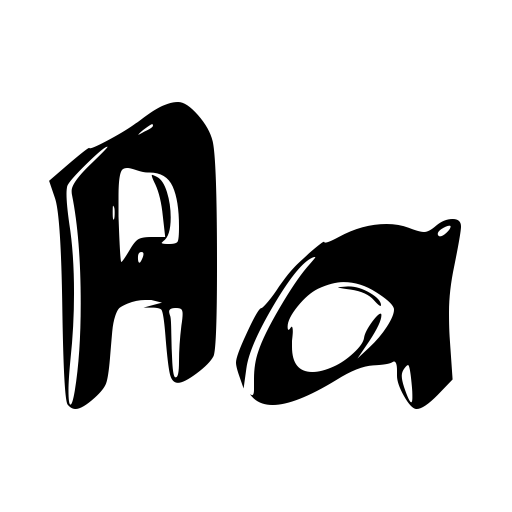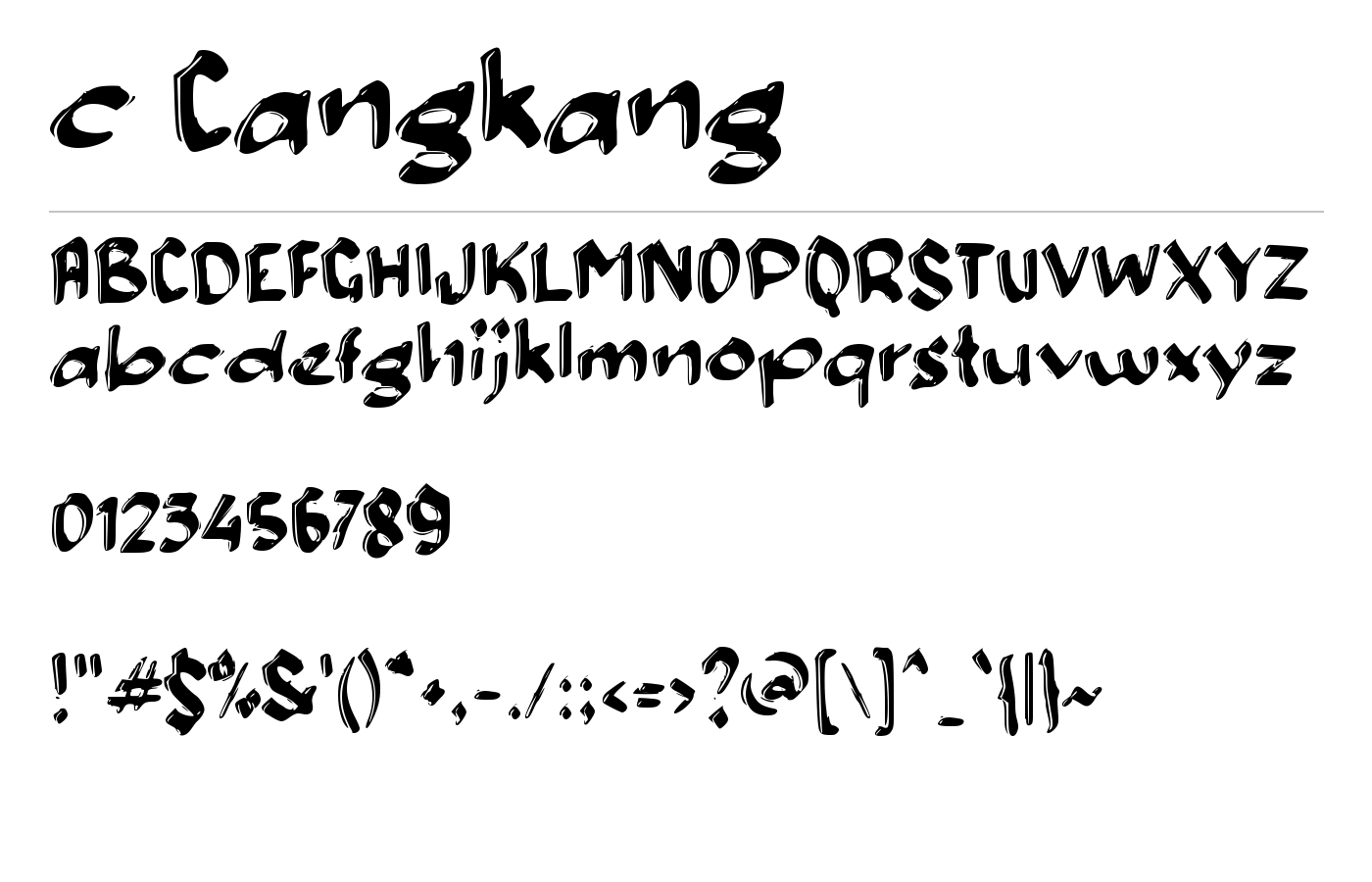
Cangkang is a bold, expressive handwritten font with a playful, artistic vibe. Its irregular strokes and dynamic shapes give it a casual, handmade feel, making it ideal for creative projects, informal branding, and eye-catching headlines that seek a unique, personal touch. This font works well where a lively, spontaneous style is desired to add character and energy.
c Cangkang Font